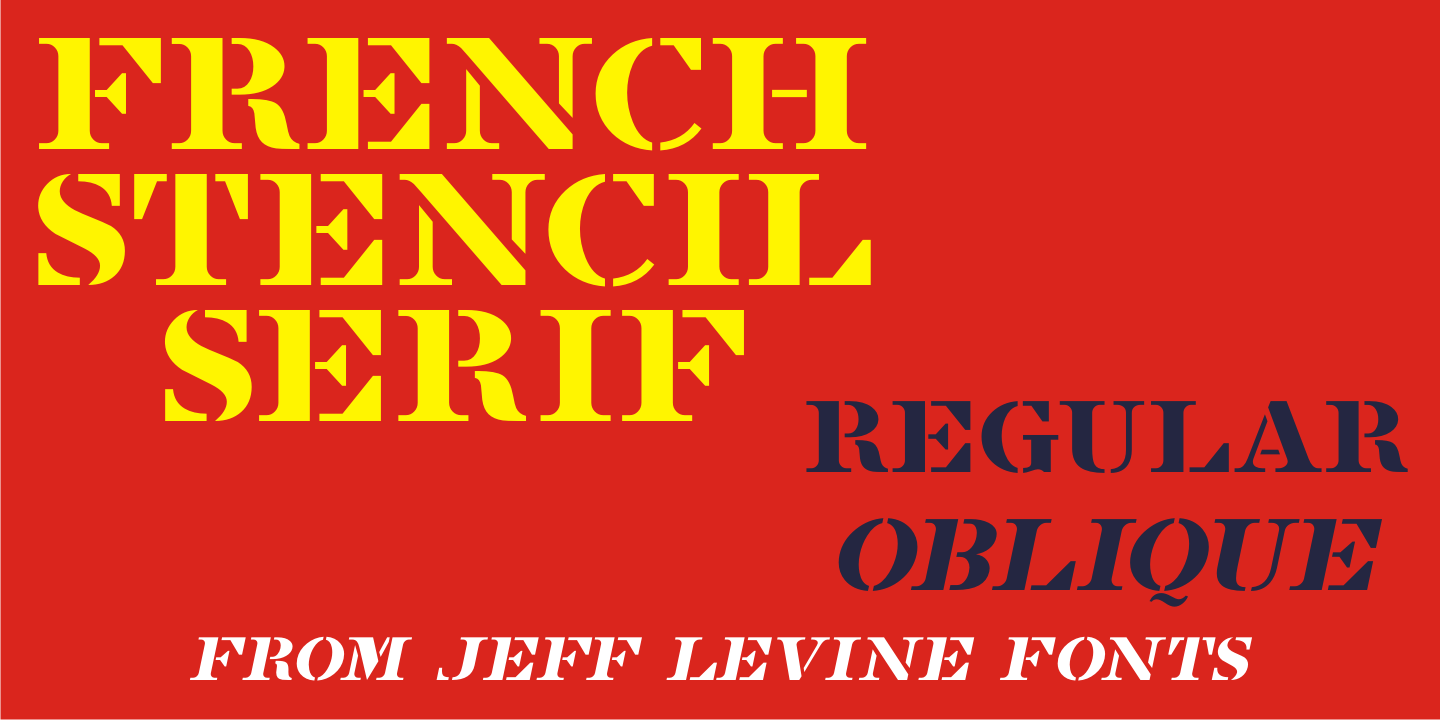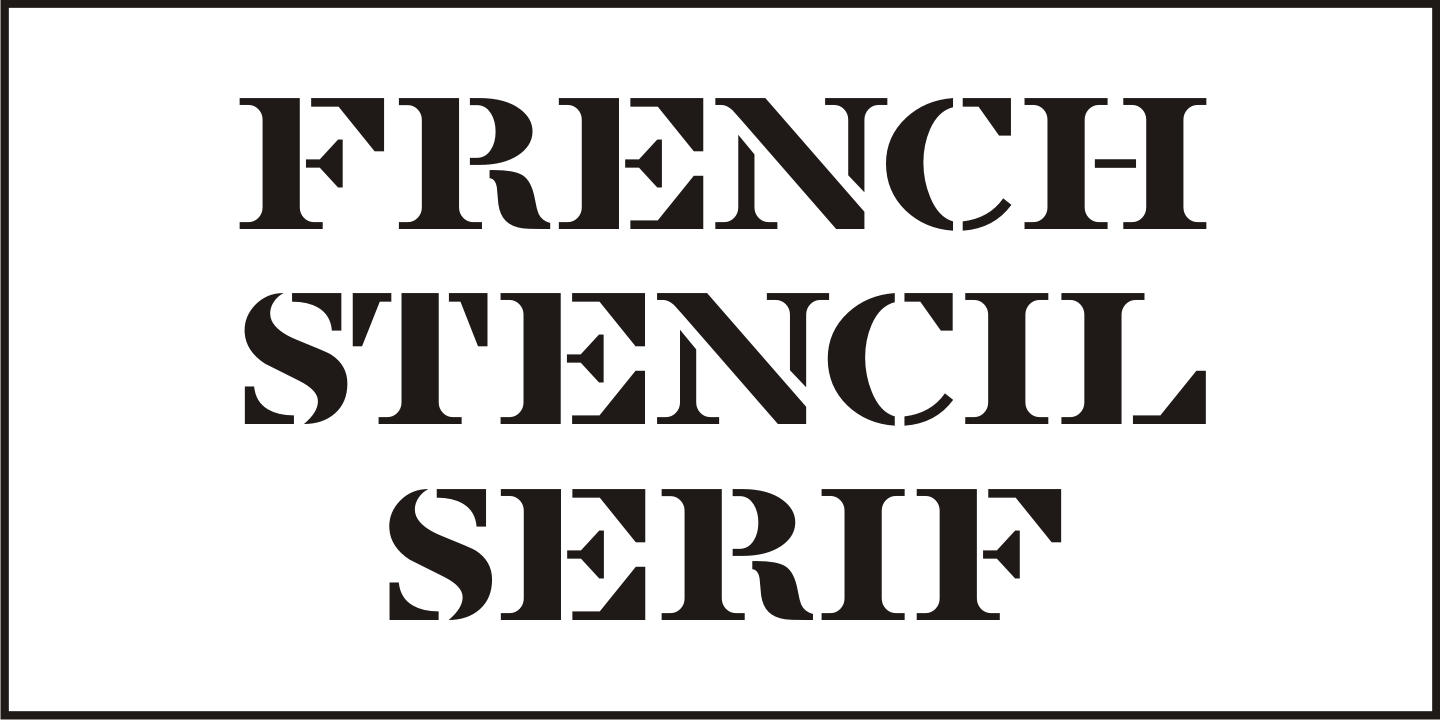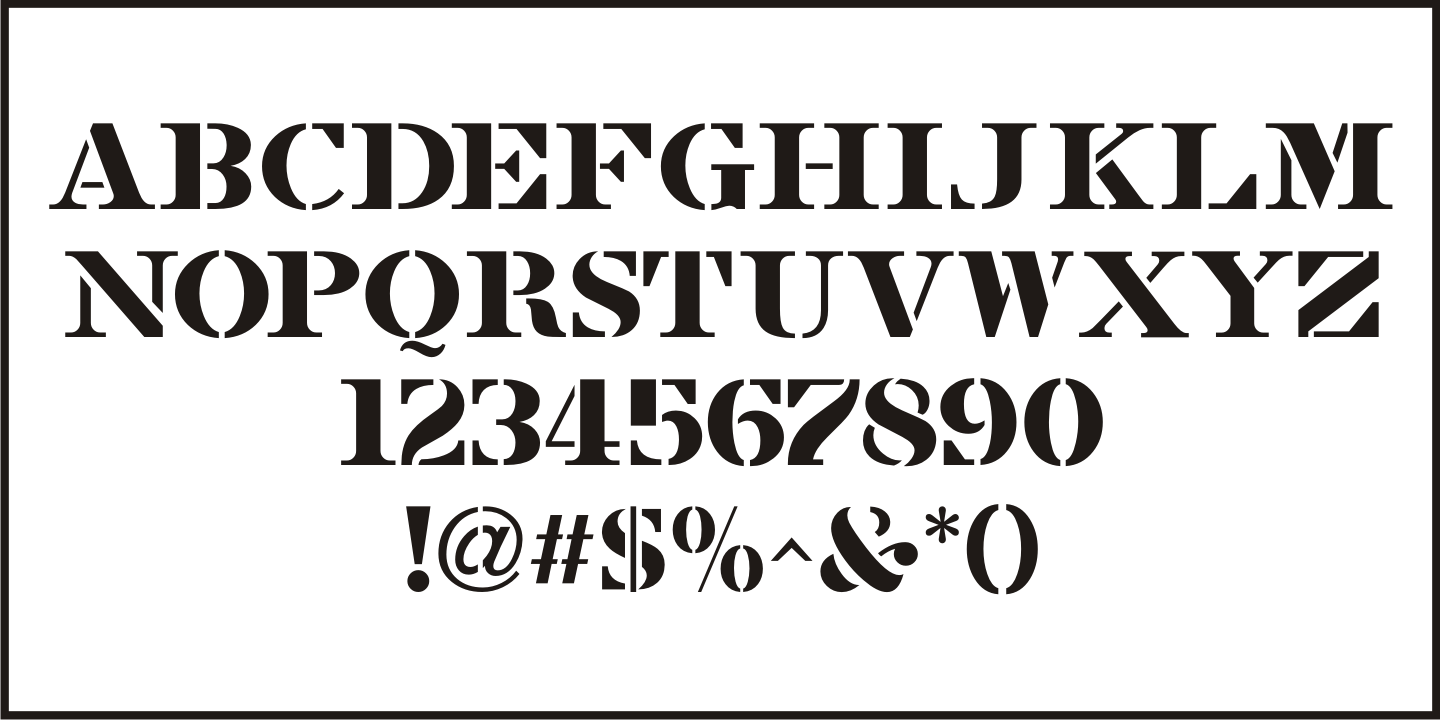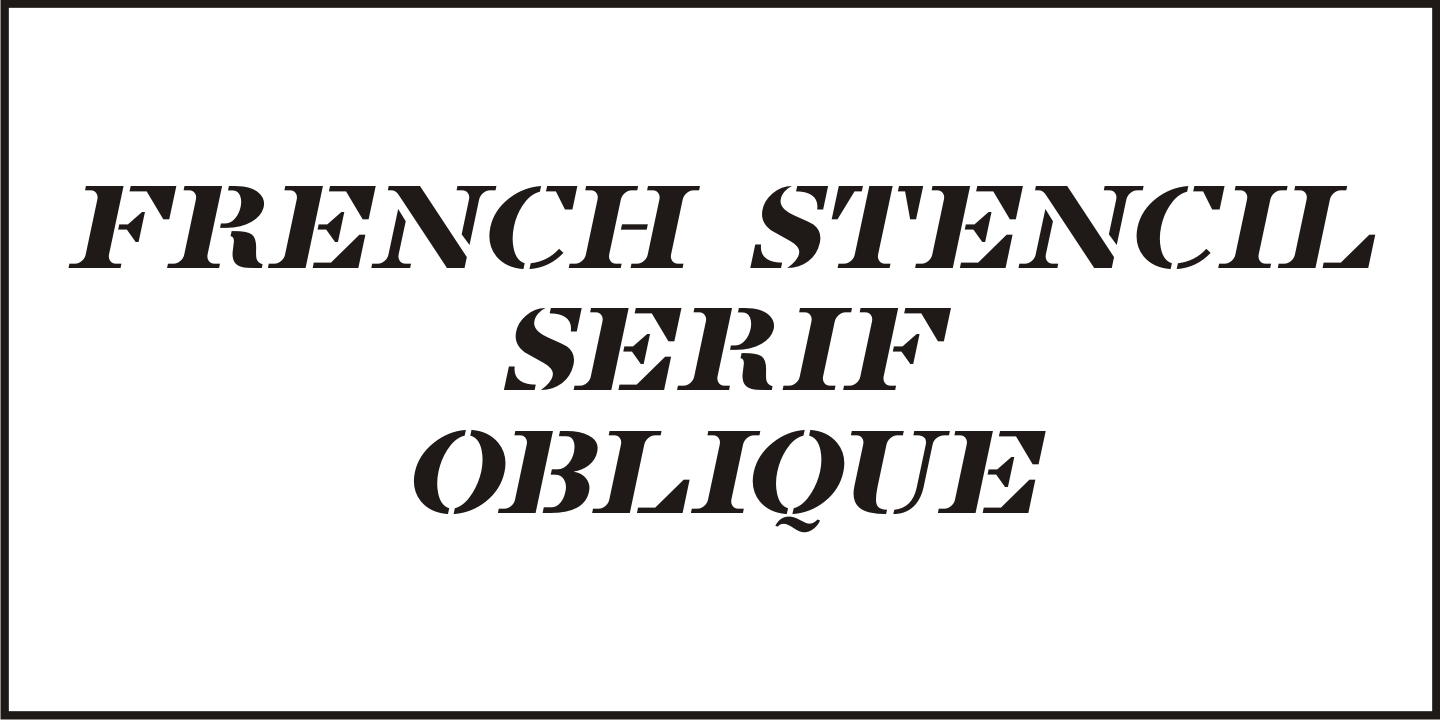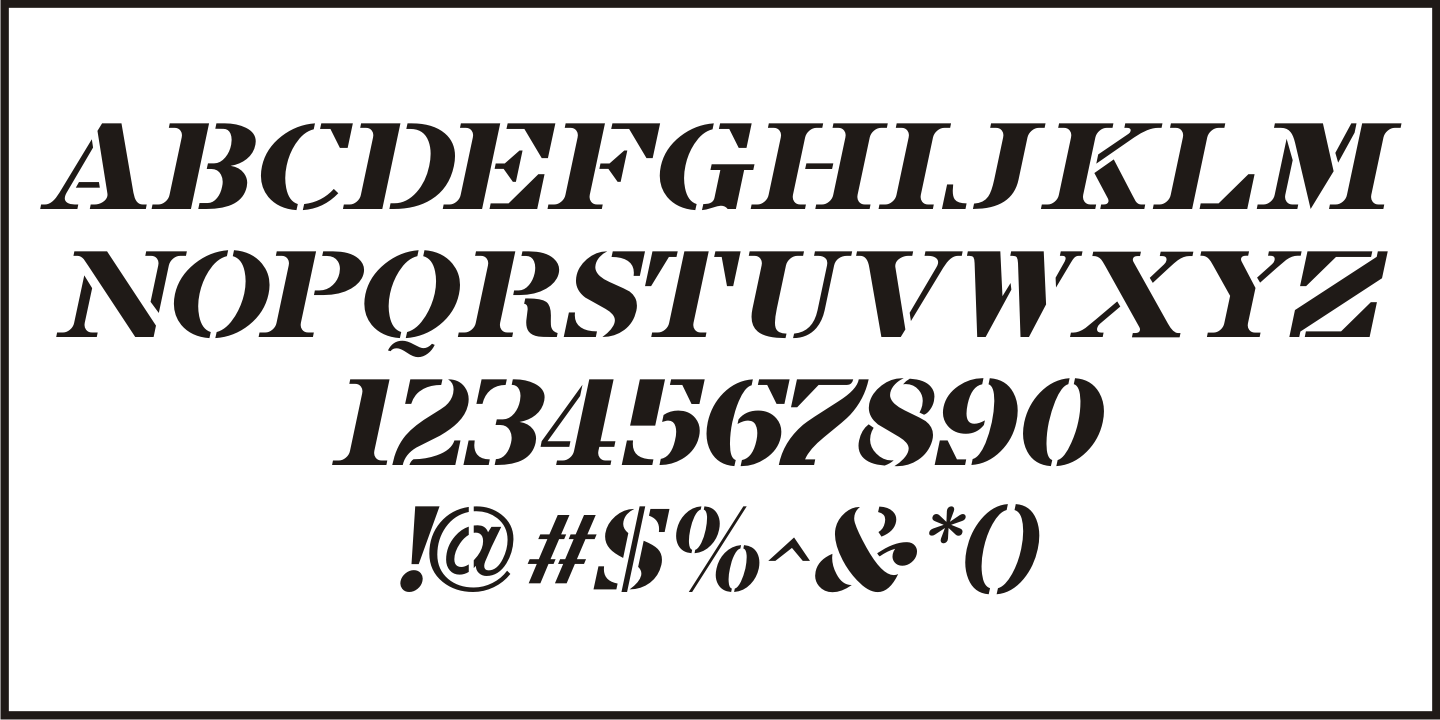
French Stencil Serif
Spotted for sale online, a partial set of antique tin stencils from France had a distinctively handmade look about them. Many of the characters were inconsistently wider than others, some characters were missing and one was damaged.
Despite the obvious flaws, the image of these stencils served as the model for a digital font revival once the characters took on a more uniform appearance.
French Stencil Serif JNL is available in both regular and oblique versions.